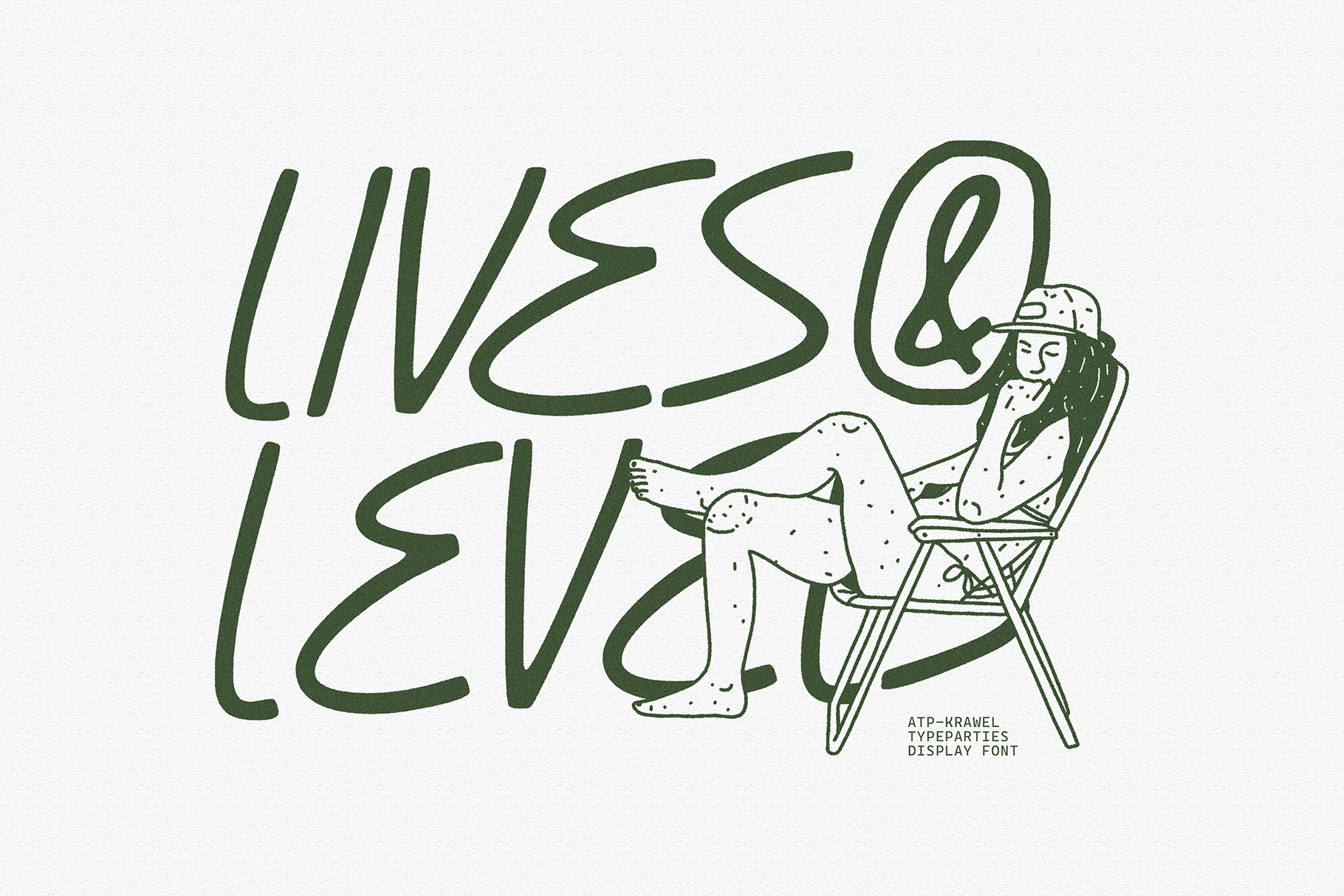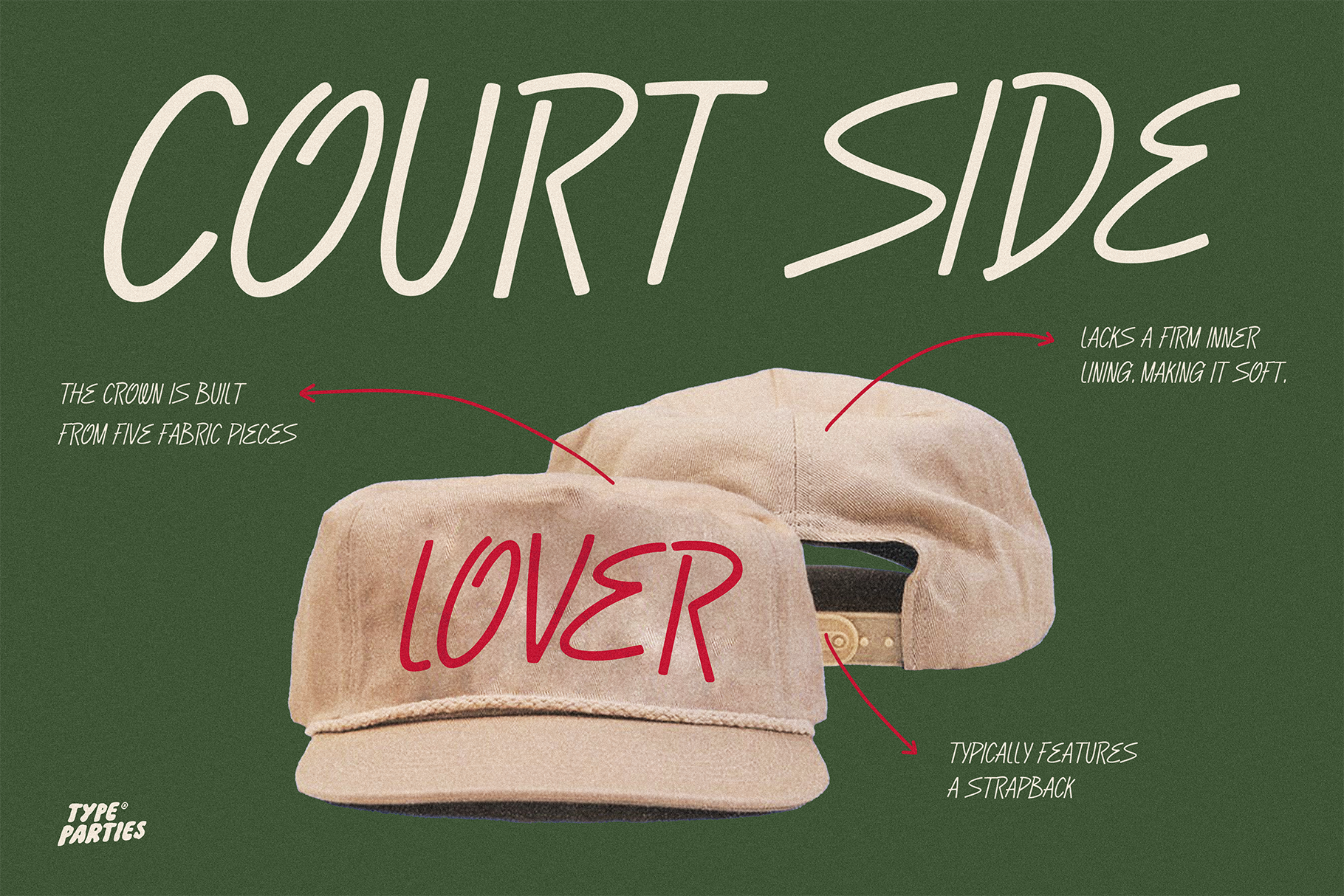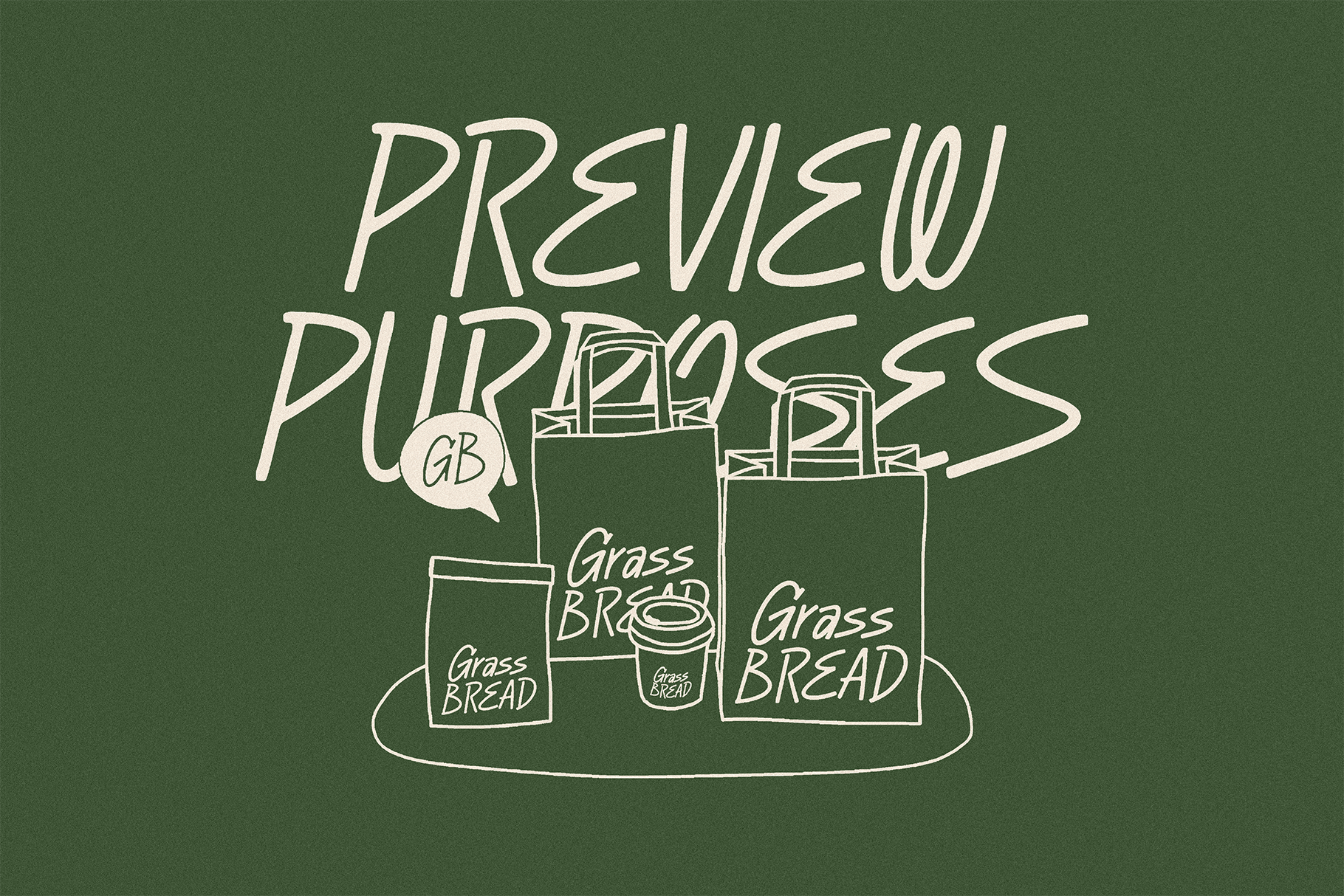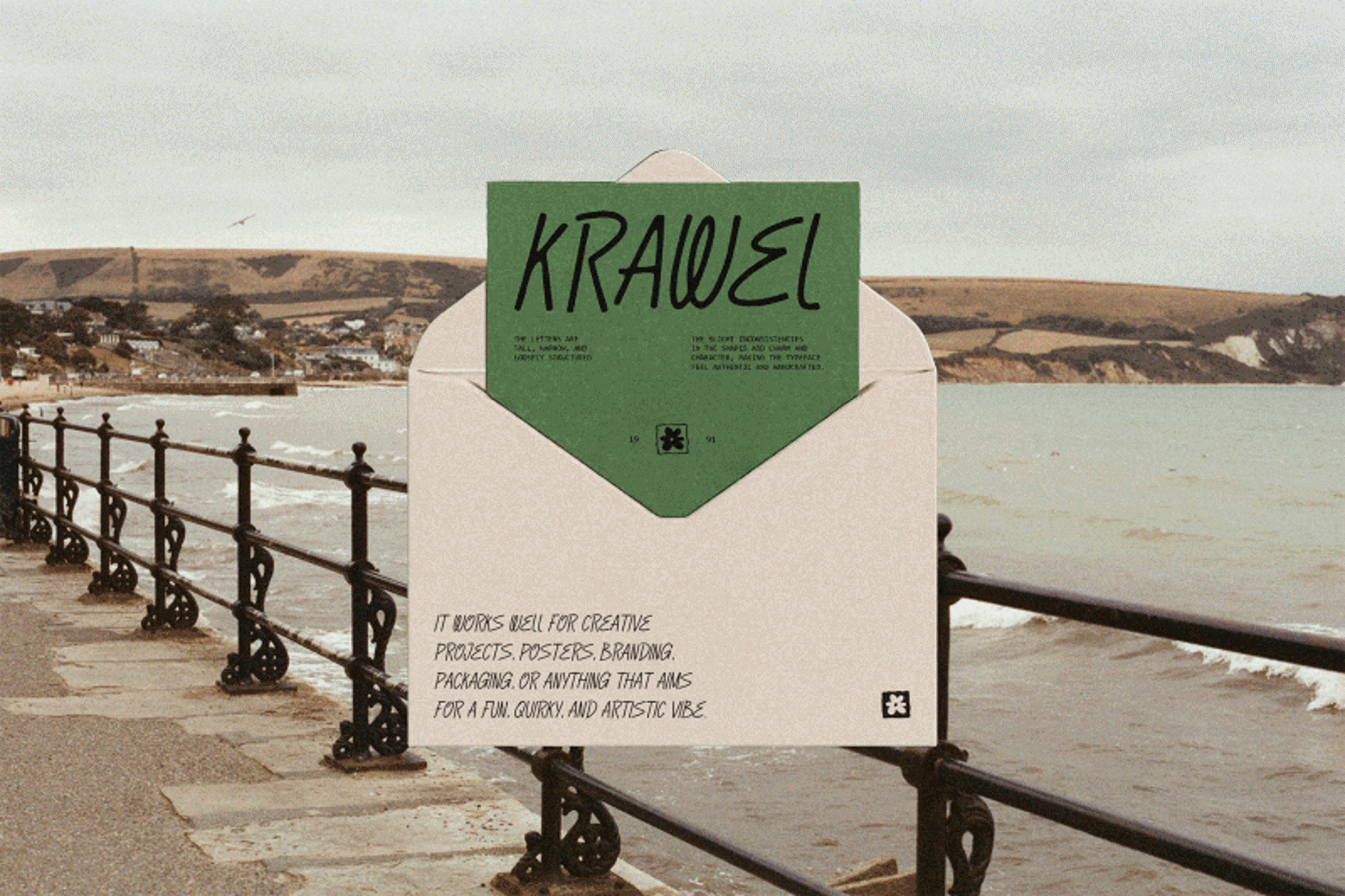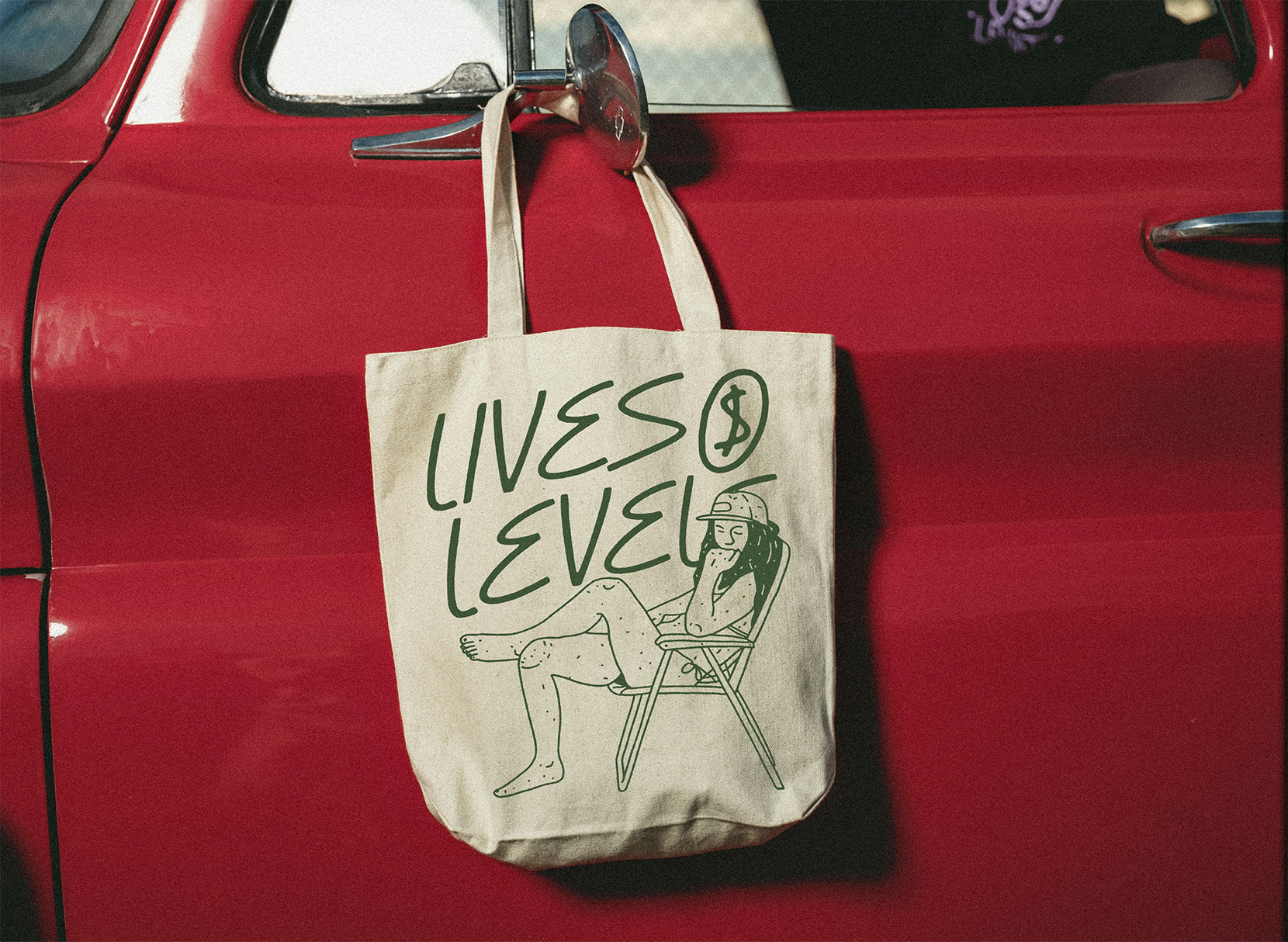
The font called KrawelÂ
It has a hand-drawn, experimental style with a playful and expressive look.
The strokes are elongated, slightly irregular, and dynamic, giving it a casual yet artistic feel.
Its imperfect lines create a sense of movement and spontaneity, making it suitable for creative, youthful, or lifestyle-oriented designs such as posters, branding, or social media graphics.
The overall vibe is organic, monoline, and free spirited, resembling natural handwriting but with a stylish twist.